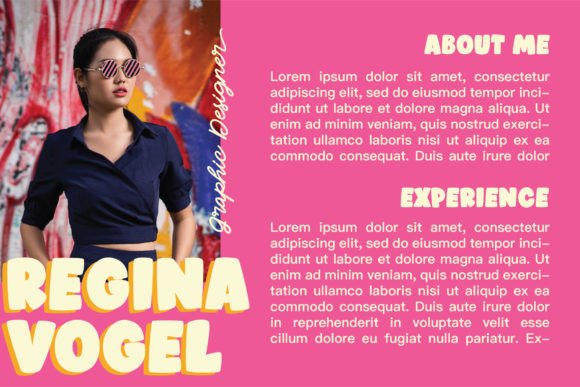
Good Ones Duo Font
Introducing Good Ones – a handwritten combo pairing with playful sans!
Good Ones will be perfect for stickers, greeting cards, logos, posters or anything that requires a fun and happy look!